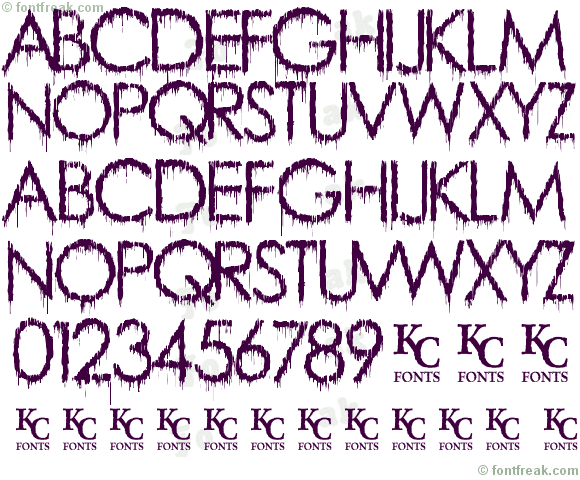
RainyDayVandal-Demo
About RainyDayVandal-Demo
RainyDayVandal-Demo is a unique display font designed by Kevin Christopher, characterized by its eye-catching, graffiti-inspired style. This font falls into the decorative category, with a distinct visual aesthetic that embodies a playful yet edgy vibe. The strokes are irregular and uneven, giving it an organic quality reminiscent of street art. The varying stroke weights create a dynamic contrast, while the dripping elements add an unmistakable flair, making it a standout choice for projects that seek to convey a sense of urban culture and creativity.
This font is particularly well-suited for a variety of creative applications. It can enhance the visual appeal of concert posters, making them more engaging and impactful. Its bold design also makes it ideal for branding purposes, especially for businesses in the arts, music, and fashion industries. Additionally, RainyDayVandal-Demo can be effectively used in social media graphics, attracting attention with its distinct personality. Small business owners looking to create an original logo or promotional material will find this font a valuable asset.
Targeted towards graphic designers, content creators, and small business owners, RainyDayVandal-Demo is a versatile tool for anyone looking to make a strong visual statement. Its free availability as a freeware license allows users to incorporate this font into their projects without financial constraints, providing an excellent opportunity for creativity.
What sets the RainyDayVandal-Demo font apart is its unique ability to blend artistic expression with functional design. It captures the essence of urban art while remaining accessible for various uses, making it an ideal choice for those who want to infuse their work with individuality. For anyone seeking a font that stands out, the RainyDayVandal-Demo font free download offers a compelling solution.